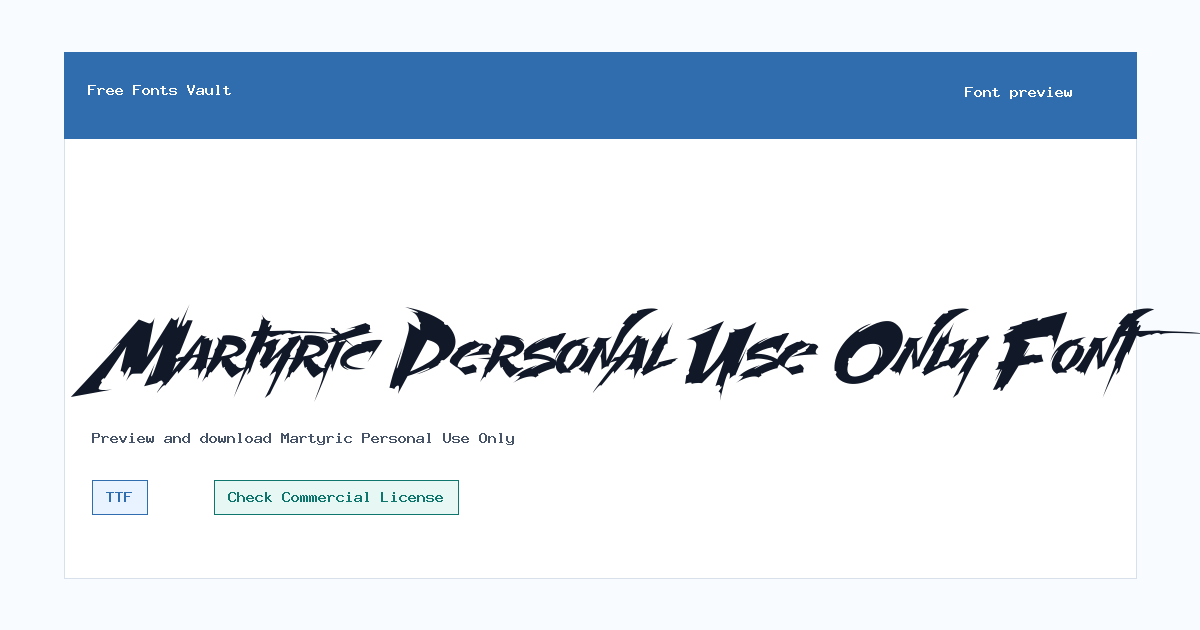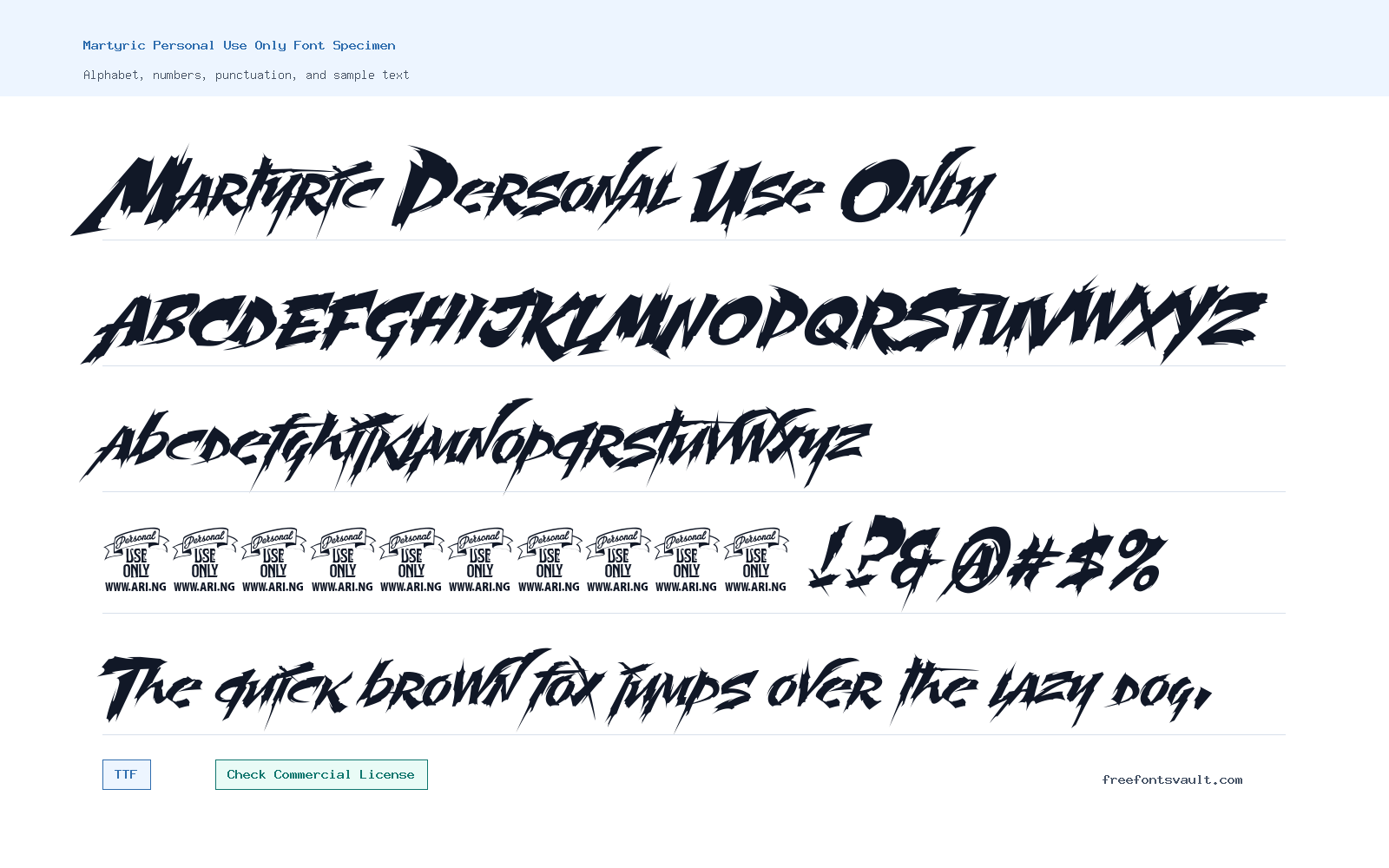
Martyric Personal Use Only
Martyric Personal Use Only is a dramatic brush-style display font with sharp strokes, rough edges, and fast handwritten energy. It works best when you need a strong title rather than long reading text.
About Martyric Personal Use Only Font
Martyric has an aggressive, slashed look. The letters lean into jagged brush shapes, pointed terminals, and uneven edges, giving words a loud poster-like feel. In the preview, the style suits short phrases where the shape of the word matters as much as the text itself.
Use it for personal mockups, fan artwork, title graphics, event concepts, thumbnails, or bold headings where readability can be checked at a larger size. Because the shapes are sharp and expressive, test your exact words in the preview before downloading, especially if the text includes small sizes, tight spacing, or mixed-case lines.
- Sharp brush lettering with jagged edges and high-impact display shapes
- Personal title graphics, posters, thumbnails, and mockups
- Short words or phrases that need an intense hand-drawn look
Keep Martyric for short display text. It can lose clarity in paragraphs, small captions, or dense layouts. Try extra spacing if the sharp strokes overlap, and pair it with a plain sans serif for supporting text. When testing Martyric, avoid judging it from the alphabet alone. Type the exact title, then look at the sharp joins and repeated letters. If the word becomes hard to read, shorten the text or increase spacing rather than forcing it into a paragraph. Use strong contrast behind Martyric. Busy photos, gradients, or textured backgrounds can make the jagged strokes harder to read, so test it over the real artwork rather than on a blank preview only.
What kind of projects fit Martyric?
It fits personal display projects such as posters, thumbnails, fan graphics, title concepts, and other short text designs that need a sharp brush look.
Is Martyric good for body text?
No. Its jagged, expressive shapes are better for short headings and large words than for paragraphs or small interface text.